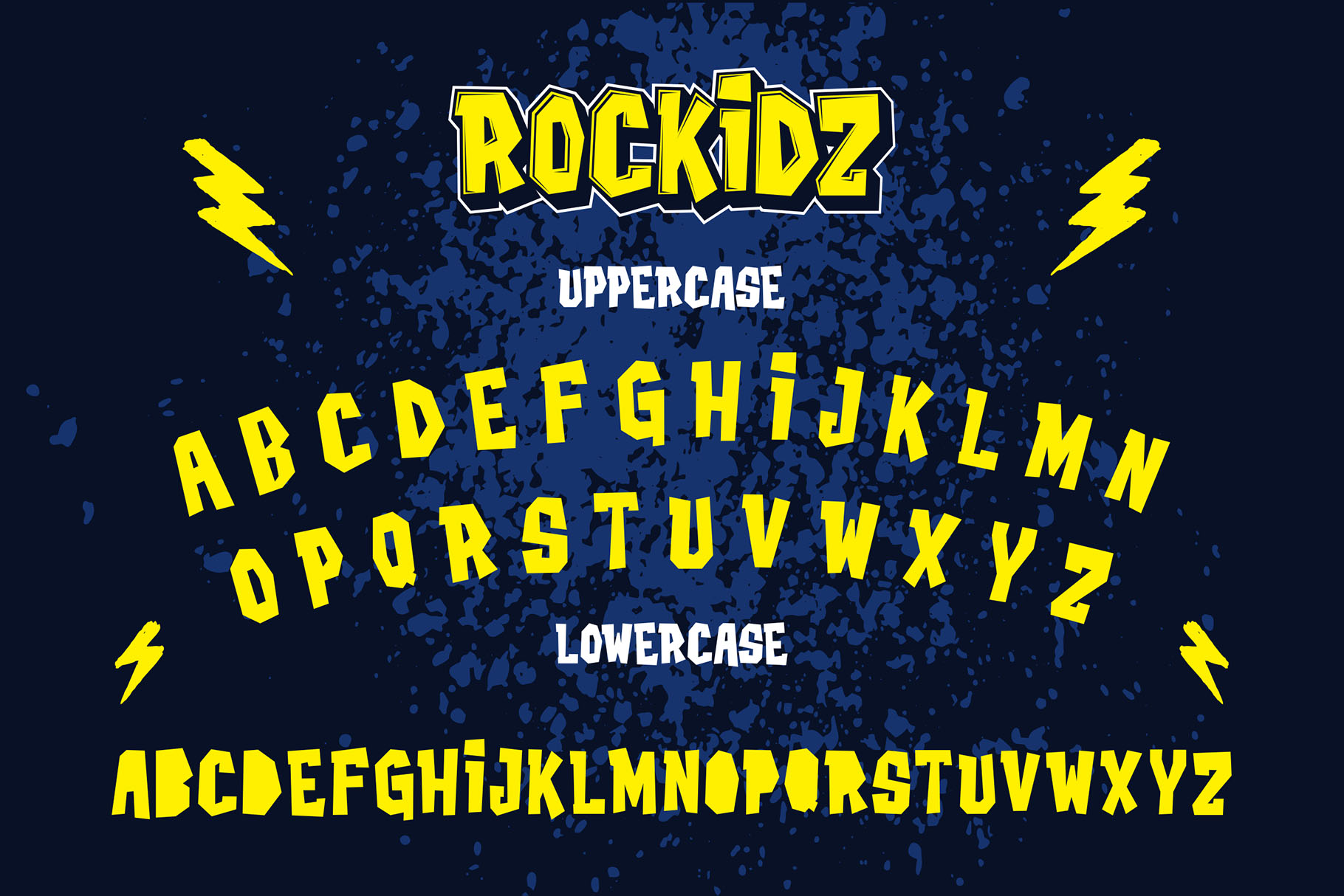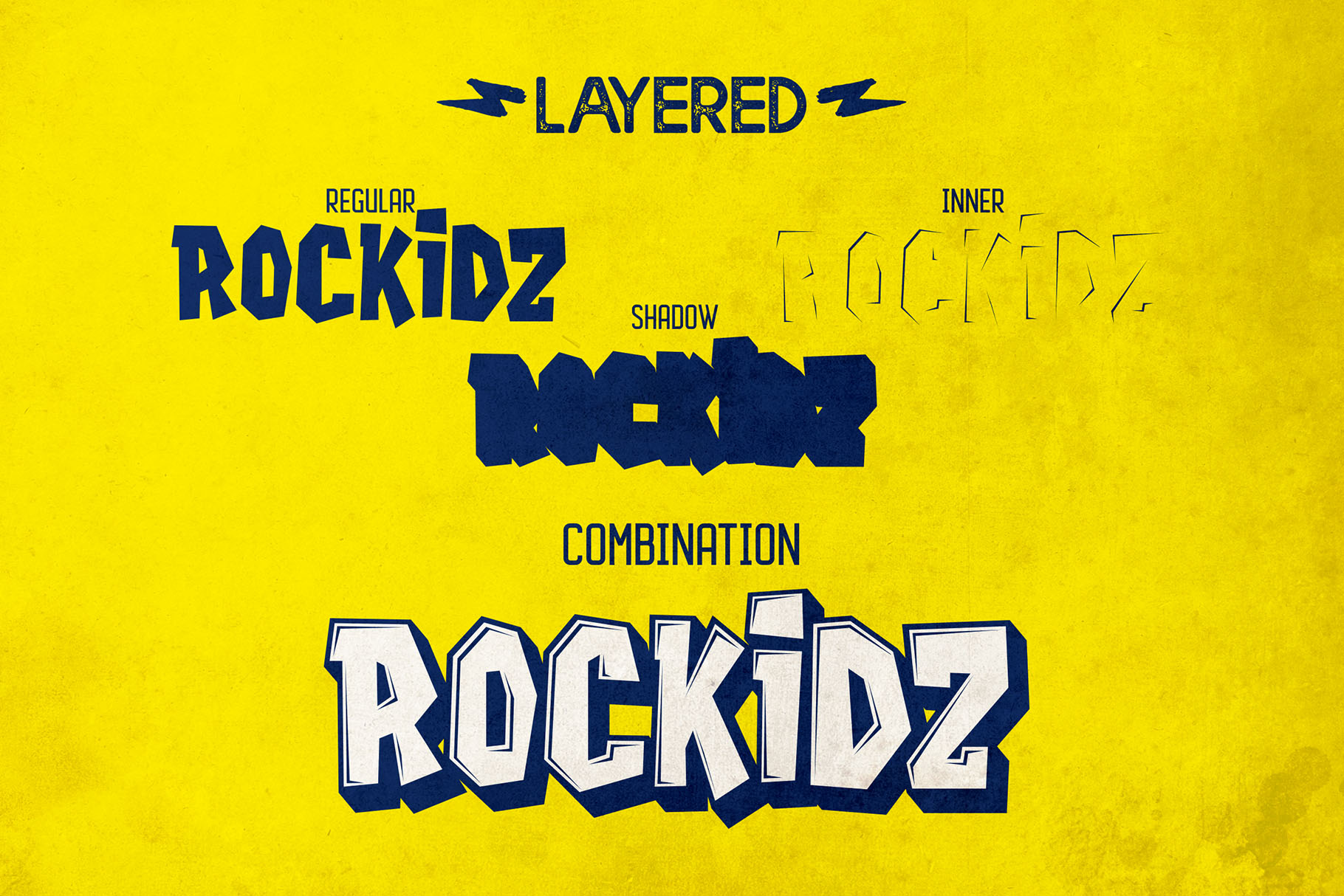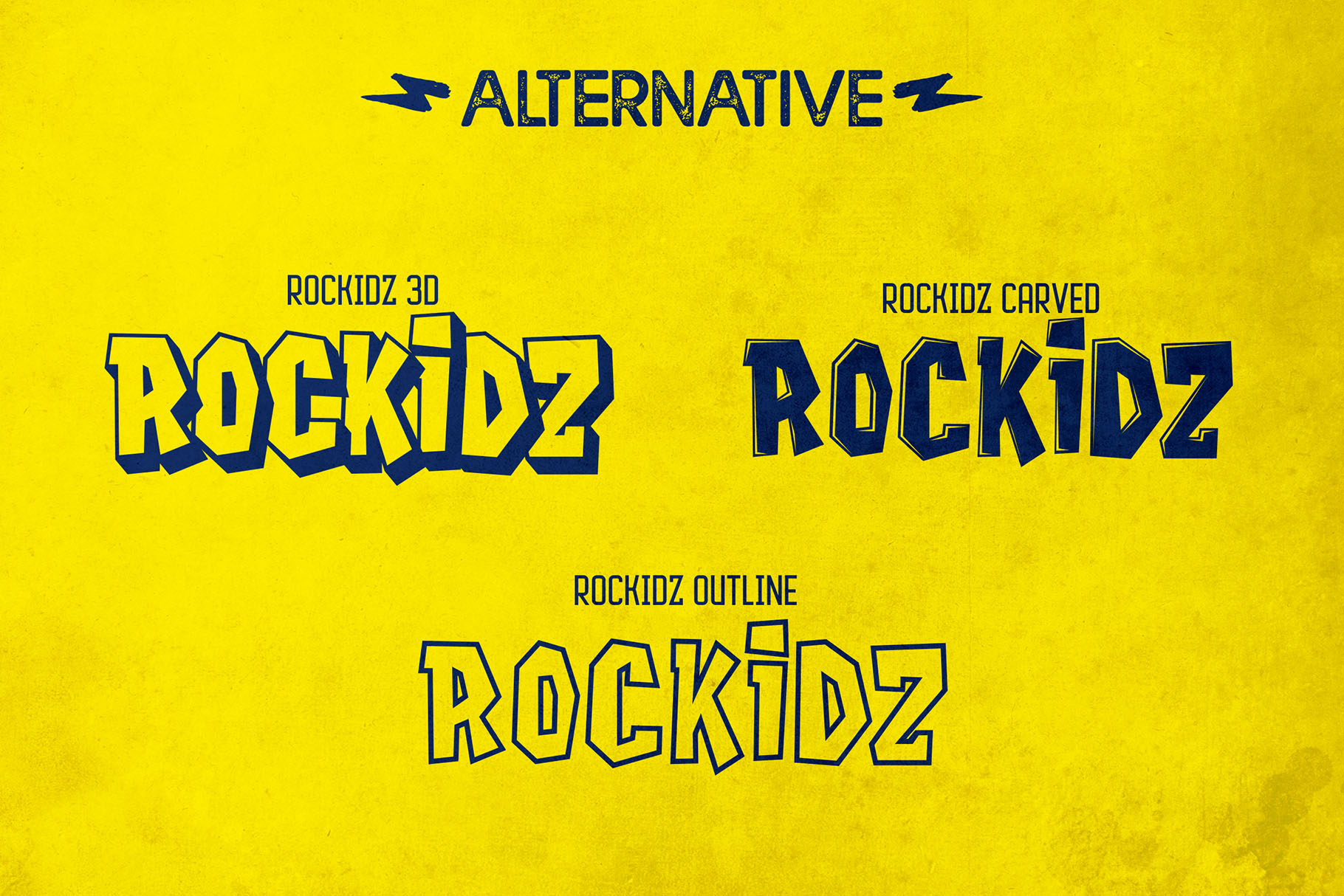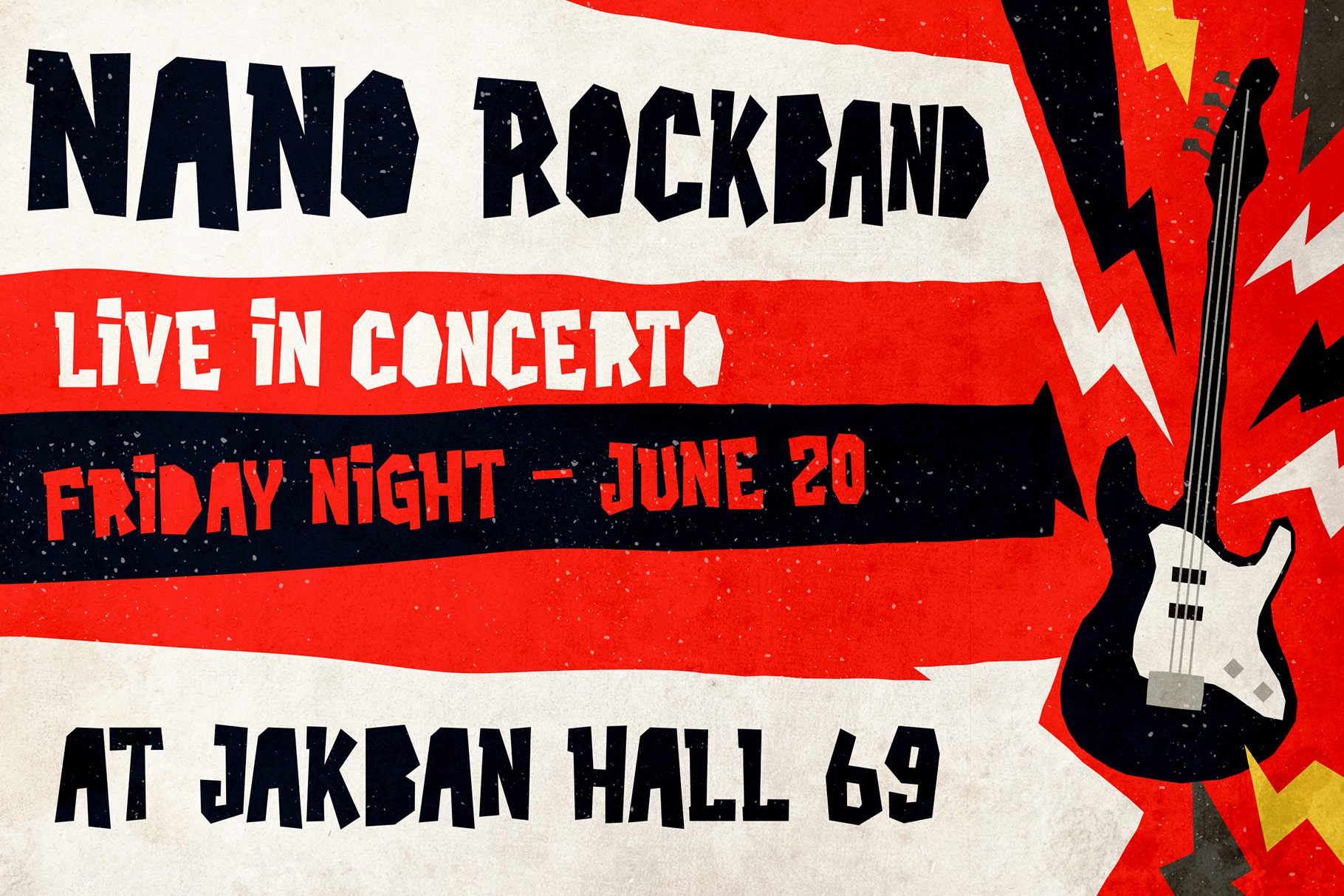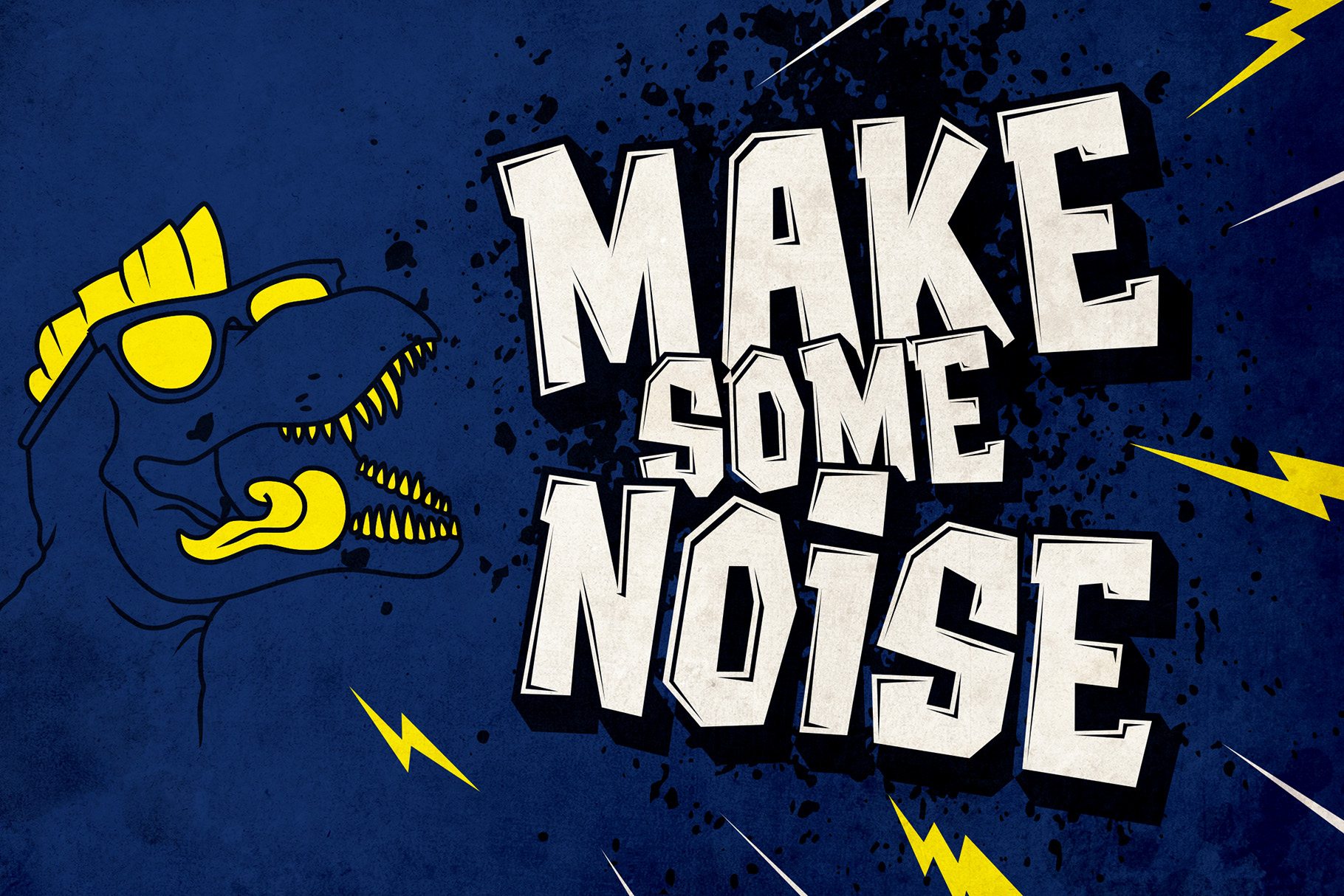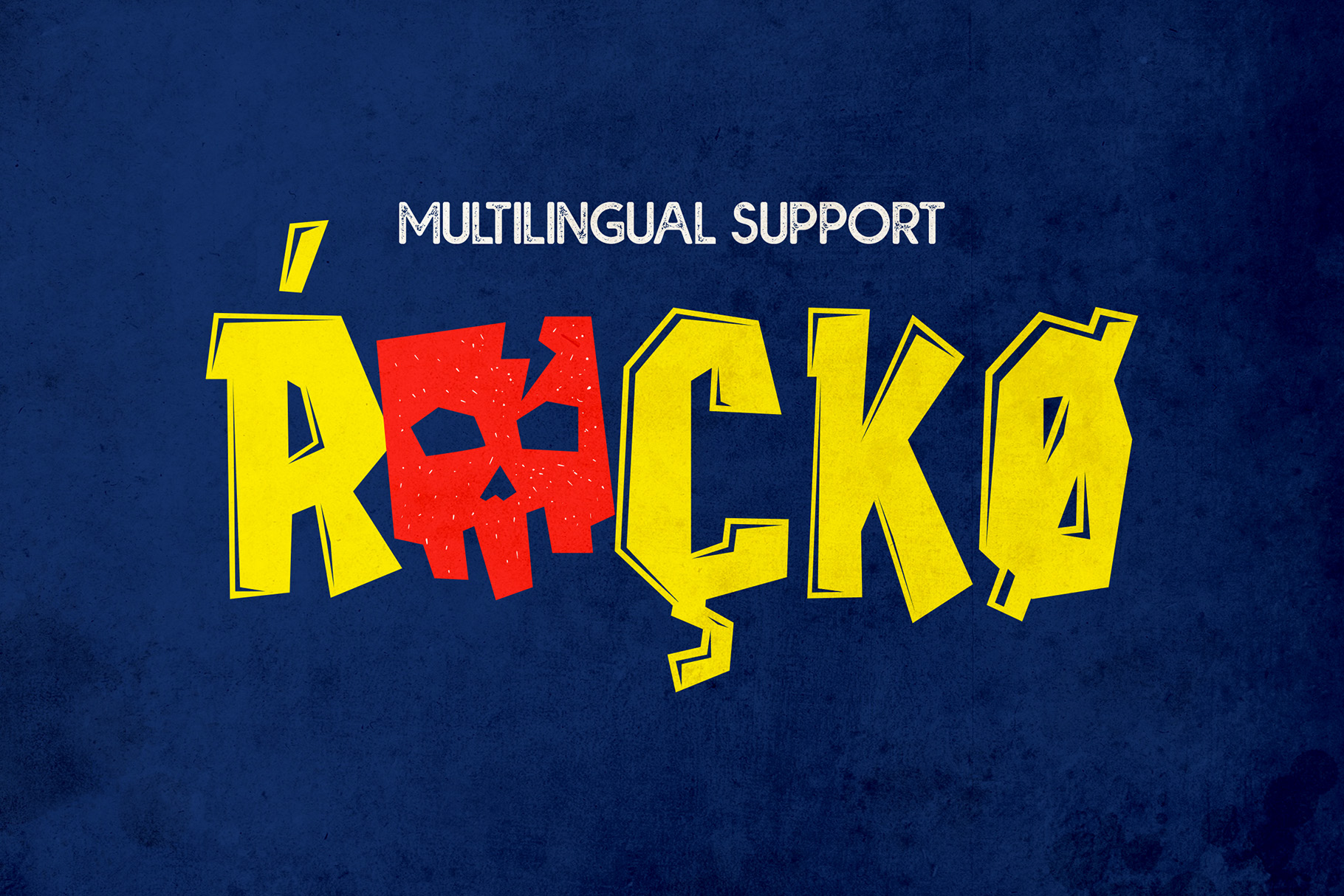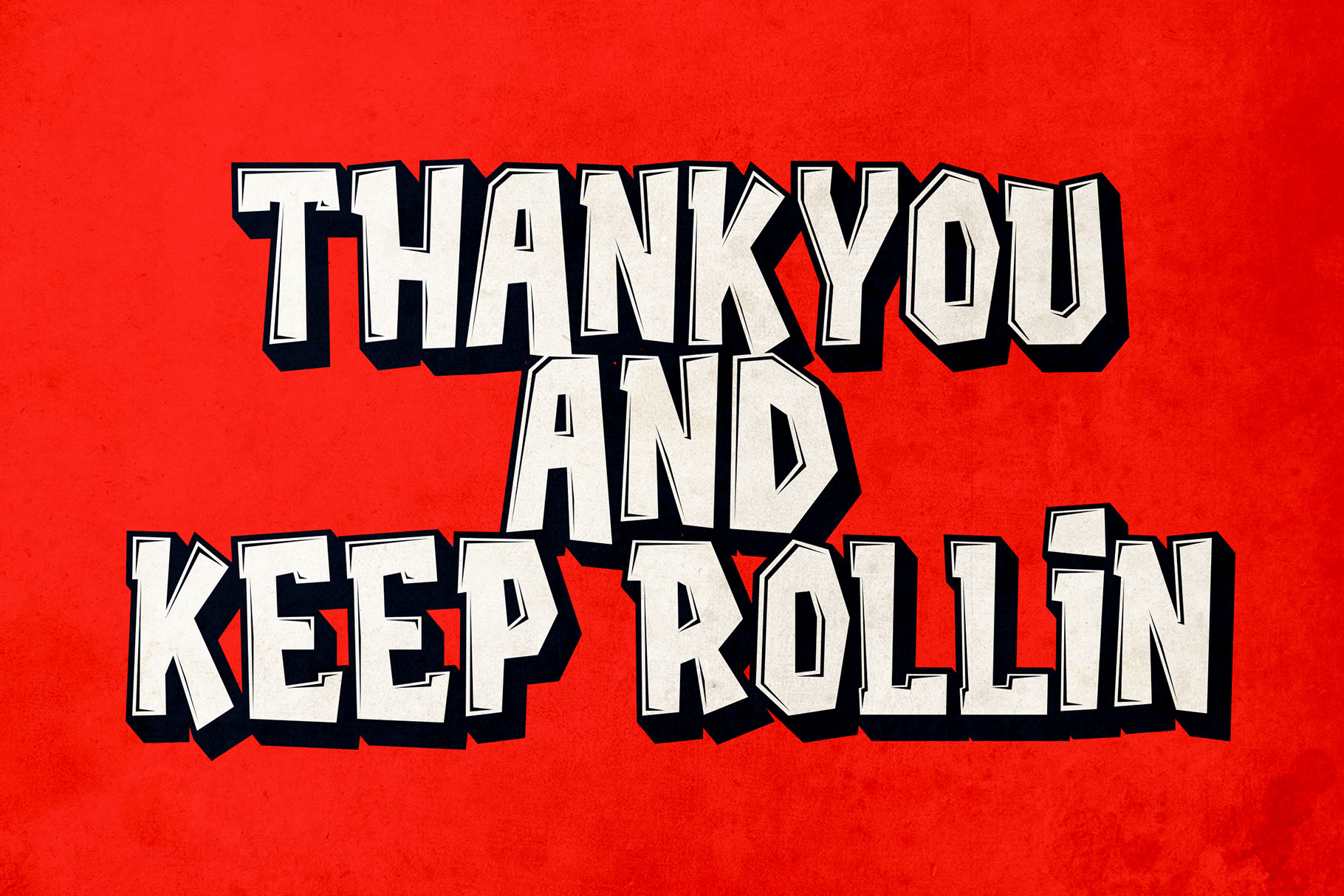
Rockidz Powerful Layered Font for Designs That Need Volume
Rockidz powerful layered font is a bold display font family inspired by the energy, attitude, and visual rhythm of powerful rock music. Designed for creative projects that need a loud typographic presence, Rockidz brings a strong layered look to headlines, logotypes, posters, apparel graphics, album covers, and expressive quote designs.
This font family is made for designers who want typography that feels confident from the first glance. Its layered structure gives you room to build dimensional compositions, mix styles, and create stronger visual hierarchy across print and digital projects. Whether you are designing a music poster, a bold merchandise collection, or packaging that needs to stand out on the shelf, Rockidz gives your words a stronger stage presence.
Rockidz works especially well when your design needs impact without feeling too polished or corporate. It carries a rock-inspired personality that feels expressive, energetic, and visually memorable, making it a practical choice for brand designers, apparel creators, poster artists, content creators, crafters, and digital product sellers.
Rockidz has a powerful layered display style built around bold decorative energy. The family includes multiple visual treatments, allowing designers to create depth, contrast, and dimensional lettering effects while keeping the overall design language consistent.
The rock music inspiration gives Rockidz a strong, expressive personality. It feels energetic, graphic, and confident, making it a natural fit for projects that need an eye-catching headline or a dramatic typographic focal point. Its layered options also help you move beyond flat text, giving your design a more custom and composed look.
The style direction is ideal for bold creative work. Think of music visuals, stage posters, festival flyers, apparel graphics, album artwork, book covers, and printed quotes. Rockidz can also support playful invitation layouts, greeting cards, product packaging, and movie-inspired visuals where strong lettering becomes the hero of the design.
Because Rockidz includes Inner, Shadow, 3D, Carved, and Outline styles, designers can create layered compositions with a more dimensional feel. These styles are especially useful when you want to build decorative title treatments, create a strong logo-like wordmark, or add extra depth to a poster or merchandise concept.
Best Use Cases
Rockidz is best used for display-focused projects where the type needs to be seen quickly and remembered easily. It is a strong choice for headings, logotypes, quotes, apparel design, invitations, flyers, posters, greeting cards, product packaging, book covers, printed quotes, album covers, movie visuals, and other creative layouts that need bold typographic personality.
For apparel designers, Rockidz can bring a strong graphic voice to t-shirts, hoodies, tote bags, caps, and merchandise drops. Its rock-inspired attitude makes it suitable for statement graphics, band-style layouts, lifestyle apparel, and bold print-on-demand concepts.
For packaging and branding projects, Rockidz can work well when the product needs a more expressive tone. It can help create memorable labels, loud product titles, and bold promotional visuals, especially for brands that want to feel creative, youthful, music-driven, or visually daring.
For poster and flyer designers, Rockidz gives headlines more weight and presence. Its layered family makes it easier to create dramatic title compositions for events, music promotions, movie concepts, printed quotes, and social media graphics.
Key Features
• Layered font family inspired by powerful rock music
• Comes with Rockidz, Rockidz Inner, Rockidz Shadow, Rockidz 3D, Rockidz Carved, and Rockidz Outline
• Suitable for headings, logotypes, quotes, apparel design, invitations, flyers, posters, greeting cards, product packaging, book covers, printed quotes, album covers, movie visuals, and more
Designers love Rockidz because it gives bold projects a more complete display system. Instead of relying on a single flat font style, Rockidz offers multiple layered versions that can be combined for stronger visual depth and more expressive lettering.
This makes it useful for real-world creative production. You can use the base style for direct, readable titles, then bring in the Inner, Shadow, 3D, Carved, or Outline styles when a design needs more dimension. That flexibility helps designers create stronger compositions for posters, apparel, branding, packaging, and promotional graphics.
Use Rockidz when your project needs more than ordinary display lettering. Let it bring depth, volume, and confident visual rhythm to your next creative piece.